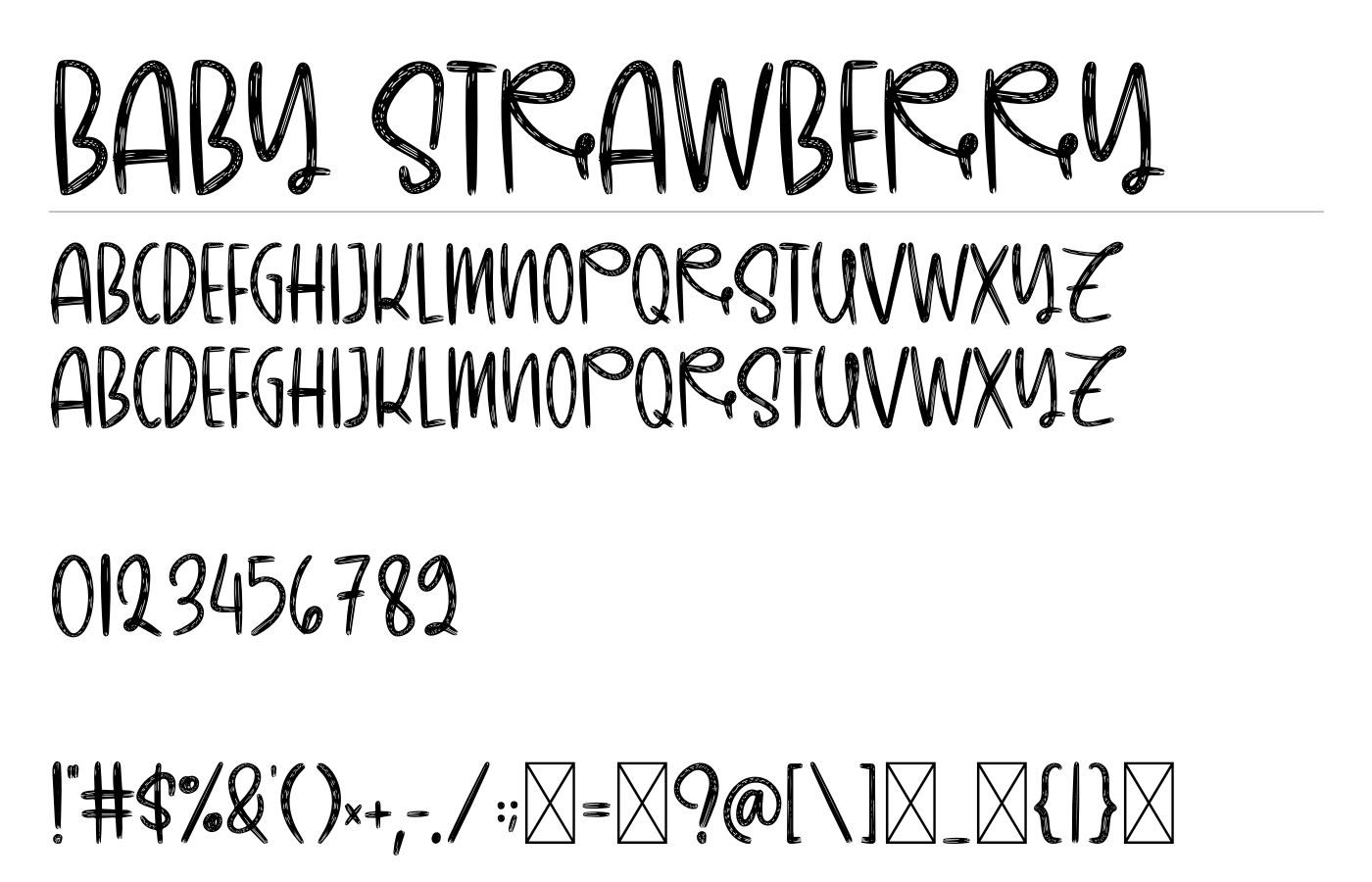
Baby Strawberry is a playful hand-drawn sans serif font with a whimsical, textured stroke that gives it a light, casual feel. Its tall and narrow letterforms, combined with unique quirky details like looped ends and a sketch-like appearance, make it ideal for fun and creative branding, children’s products, or informal invitations. This font brings a cheerful and approachable personality that works best in headlines, logos, and decorative text where a friendly, handmade touch is desired.
Baby Strawberry Font